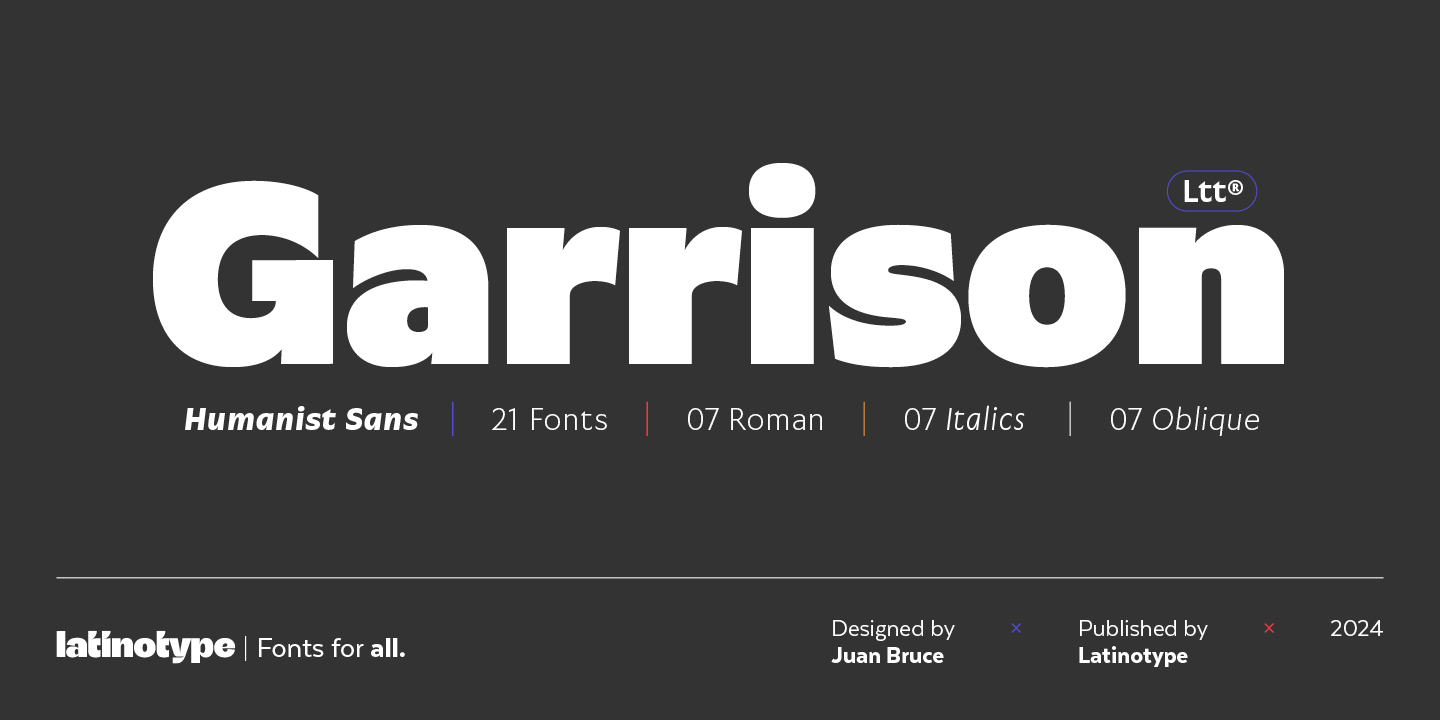
Garrison Font is perfect for military and authoritative applications including defense contractor branding, military academy materials, security company documentation, tactical equipment packaging, veteran organization communications, law enforcement training materials, government facility signage, and military history publications. This commanding typeface brings disciplined strength and institutional authority to projects requiring unwavering credibility and military precision.
What makes Garrison Font exciting is its authentic embodiment of military discipline and commanding presence that demands immediate respect and attention. The font features bold, structured letterforms with sharp edges and consistent weight that convey strength, reliability, and unwavering determination. Its authoritative character design incorporates military-inspired proportions and systematic spacing that create an immediate sense of order and institutional credibility essential for defense-related communications.
The Garrison Font family includes multiple weights and condensed variations optimized for military and security applications. From standard weights for documentation to ultra-bold variants for high-impact signage and warnings, each style maintains the signature military character. The family also includes stencil versions and tactical symbols commonly used in military and security contexts for comprehensive operational communications.
Military organizations and security professionals consistently choose Garrison Font Free Download for projects requiring authoritative typography and institutional credibility. Whether developing military training materials, creating security protocols, or designing defense industry communications, this font delivers exceptional command presence and professional authority. Its unique combination of military heritage and contemporary functionality makes it an essential resource for professionals working on defense projects, security applications, and institutional materials that demand typography reflecting strength, discipline, and unwavering commitment to mission success.